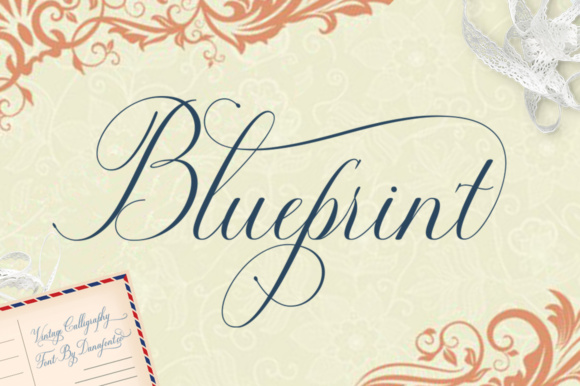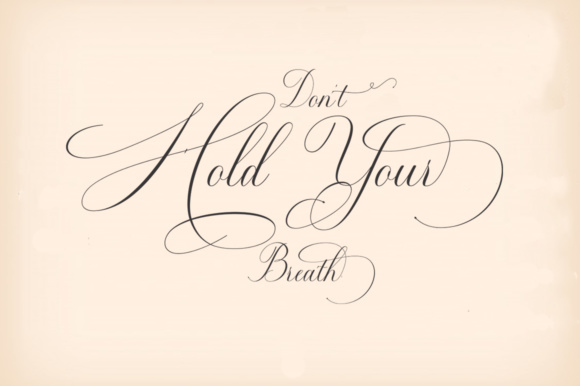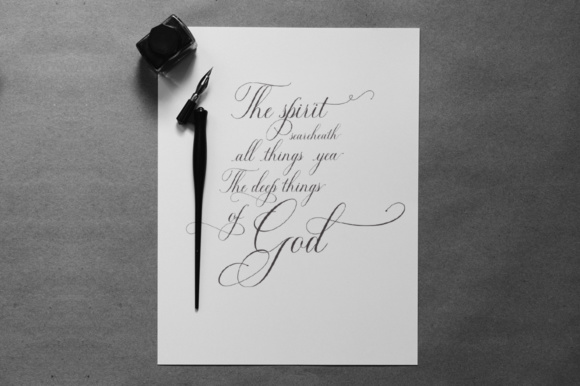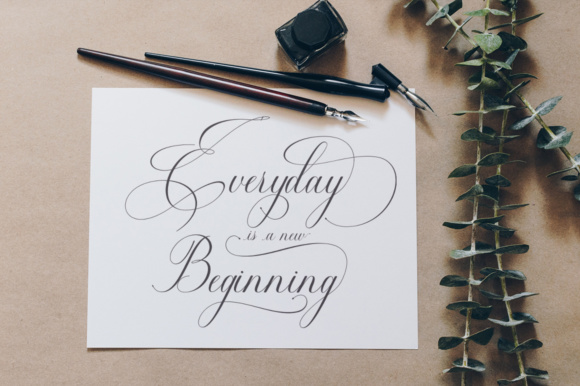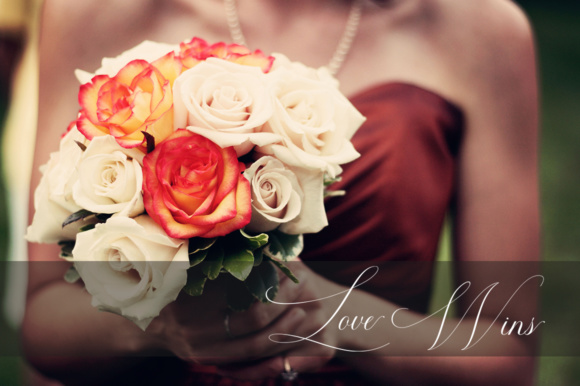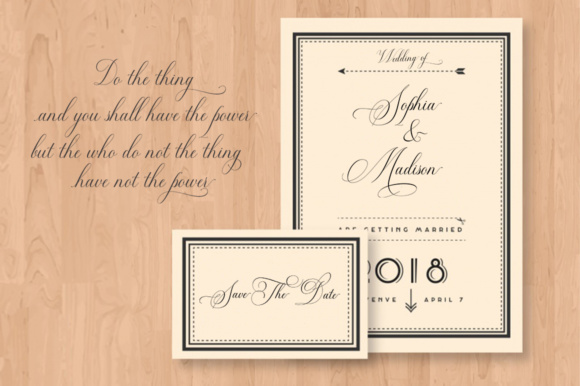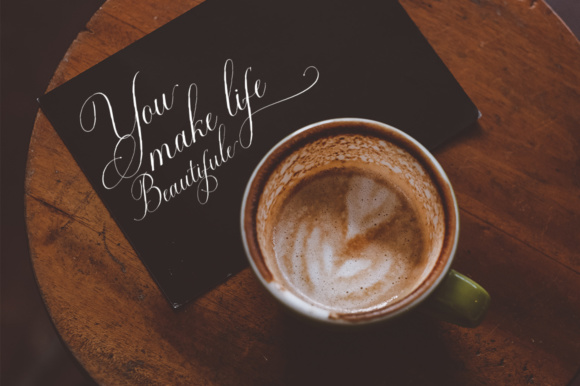
Blueprint Font
Blueprint is a gorgeous calligraphy font that comes packed with beautiful alternative characters; this font was crafted to bring the utmost in elegance and style.